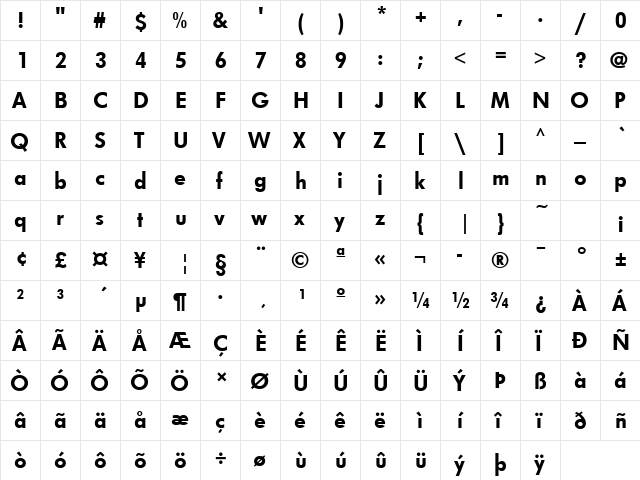
FuturaNo7TMed Regular
Design Context for FuturaNo7TMed Typeface
FuturaNo7TMed has a distinctly futuristic character, with geometric precision and clean angles that feel at home in technology, gaming, and sci-fi contexts.
Pro Tip: Try FuturaNo7TMed with generous letter-spacing in UI labels and navigation — the geometric forms benefit from room to breathe.